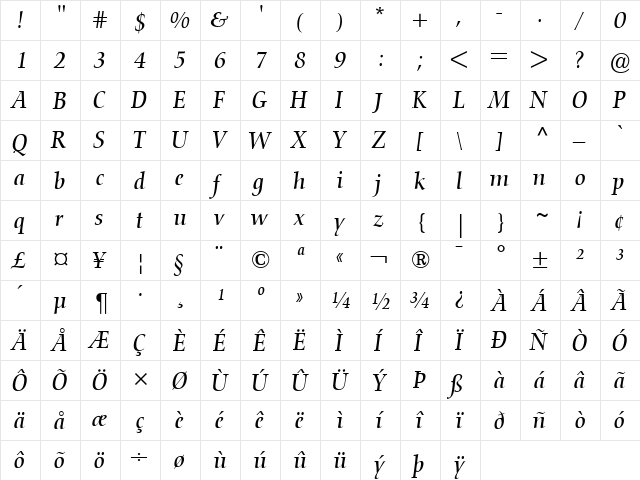
Nofret Italic Font Preview
Nofret Italic
Design Context for Nofret Typeface
Nofret takes a measured approach to typography — its balanced proportions and neutral character make it a reliable workhorse for both digital and print work. The slanted form adds forward momentum and visual energy.
Pro Tip: Use Nofret for emphasis, pull quotes, and subheadings where its slanted energy can add rhythm to the layout.